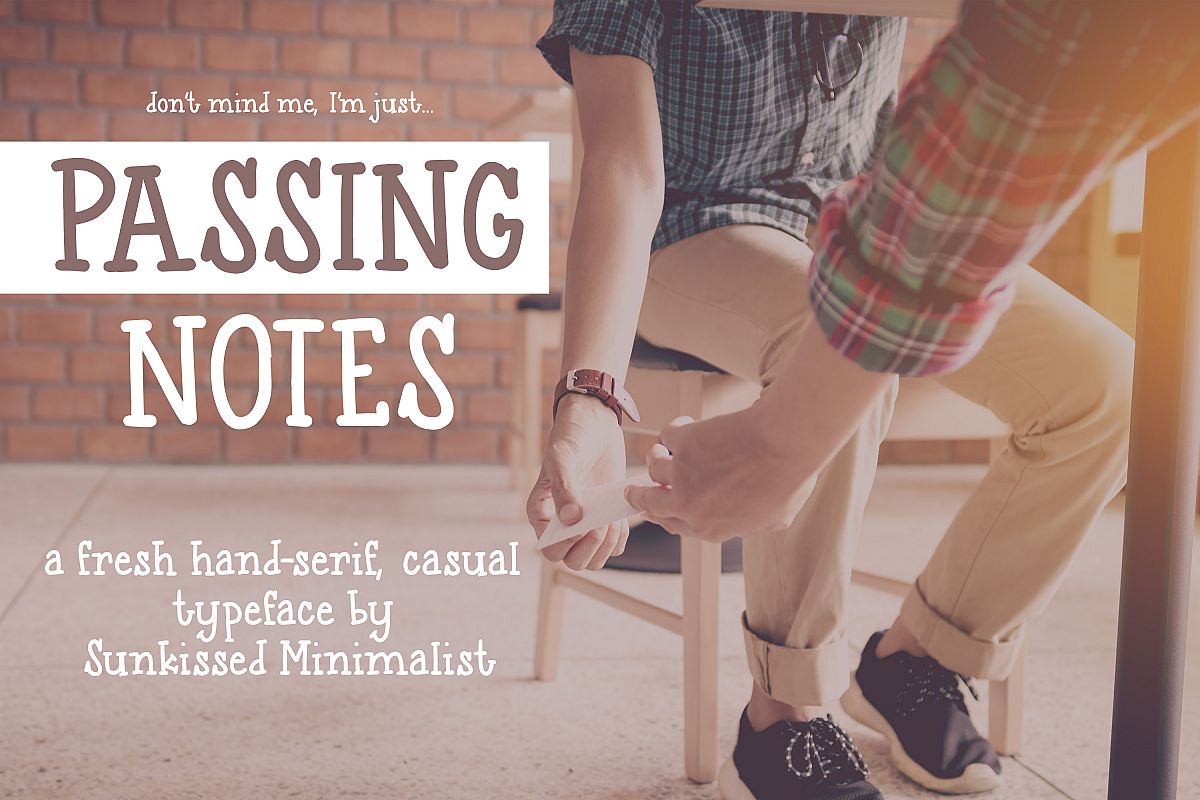
Passing Notes
Passing notes is a fresh hand-serif, casual typeface created by yours truly. It features uppercase, lowercase, and latin characters and accents!
Sunkissed Minimalist Co
Passing Notes
By Sunkissed Minimalist Co